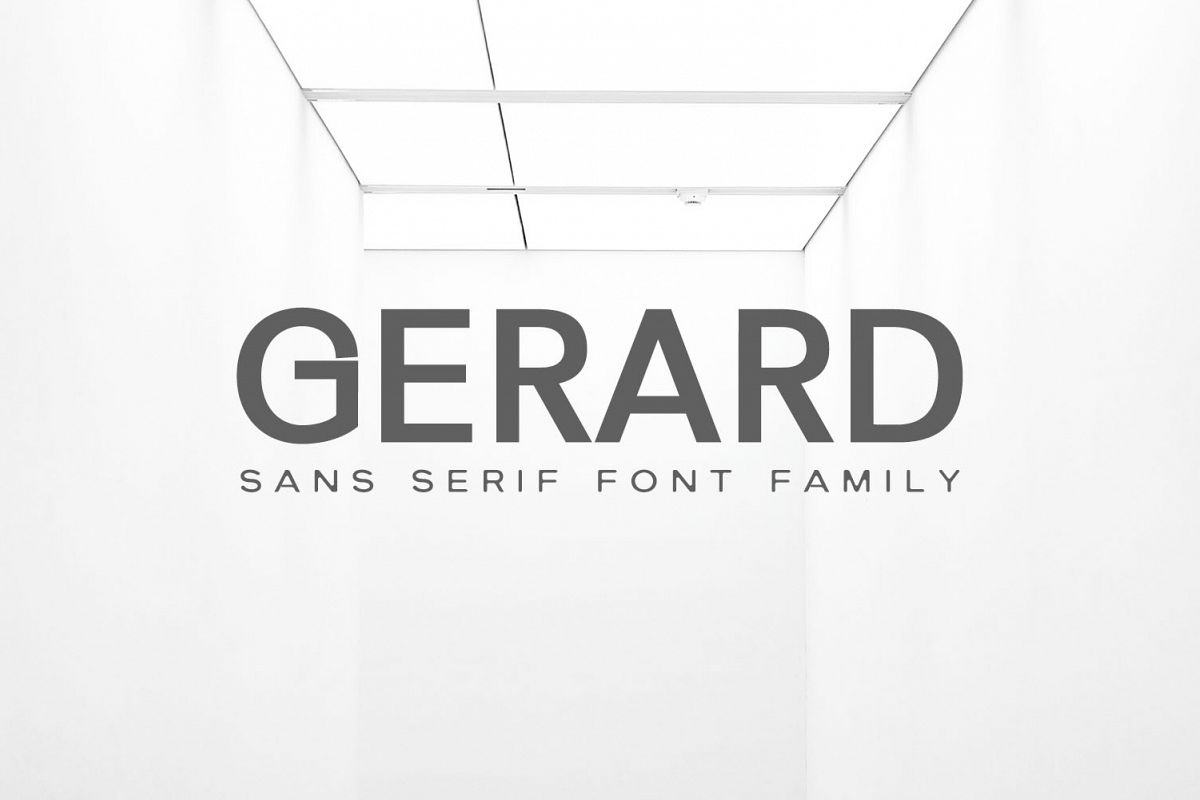
Gerard Sans Serif Font Family
Gerard-regular
Gerard-Light
Gerard-Round
Gerard-Smooth
Gerard-Thin
Gerard Sans Serif Font Family
is a minimalist creative rounded sans serif font pack that looks
stunning in every context. It contains 5 weights. Gerard is great for
magazine, logos, invitations, text, presentations, posters, notices,
titles, name card, web layouts, headers, branding, weddings, social
media, product design, stationery and advertising, and other any
business related.
• Font Weight: Regular, Thin, Light, Round, Smooth and Bold
Font Features:
• Uppercase Letters
• Lowercase Letters
• Number and Punctuation